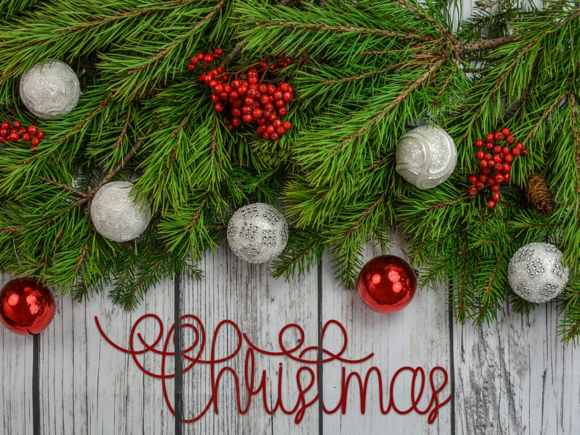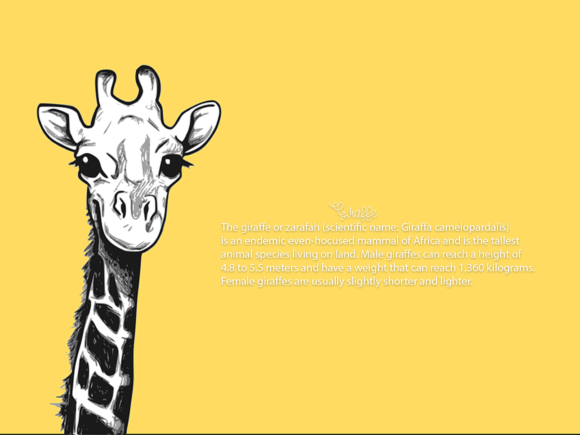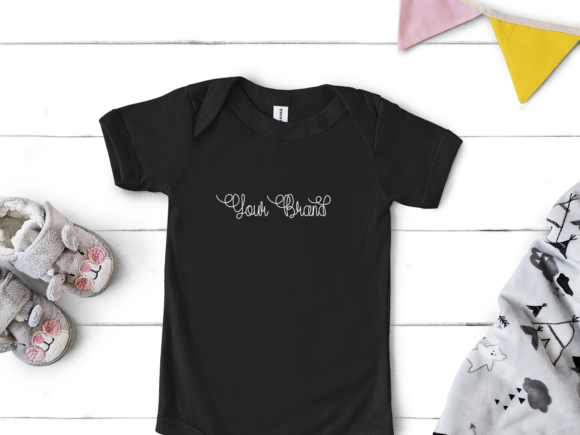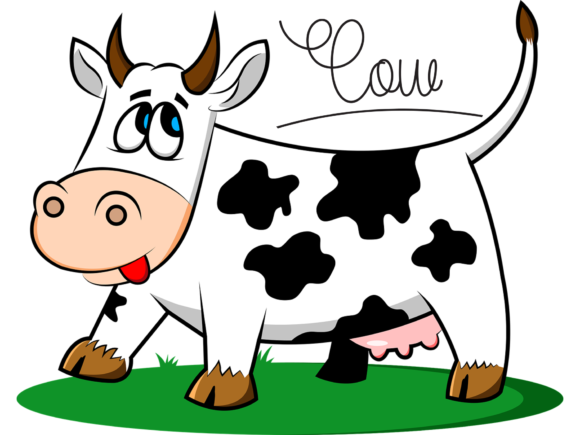
Burger Font: Adding a Personal Touch to Your Designs
In the world of typography, fonts play a crucial role in conveying the tone and personality of a design. If you’re looking for a font that exudes warmth, friendliness, and a touch of whimsy, look no further than Burger Font. This thin lettered, personal, and whimsical script font is perfect for adding a lovely touch to various designs, from letter invitations to Christmas cards, wedding invitations, and more.
What is Burger Font?
Burger Font is a unique script font that features thin, elegant letters with a personal and whimsical feel. Its delicate strokes and curly flourishes make it an excellent choice for designs that require a touch of sophistication and playfulness. Whether you’re a designer, crafter, or DIY enthusiast, Burger Font is an excellent addition to your typography collection.
Characteristics of Burger Font
So, what makes Burger Font so special? Here are some of its key characteristics:
• Thin lettered: Burger Font features thin, delicate letters that are perfect for creating elegant and sophisticated designs.
• Personal: The font has a personal touch, making it ideal for designs that require a human and approachable feel.
• Whimsical: Burger Font’s curly flourishes and playful strokes add a touch of whimsy to any design.
• Script font: As a script font, Burger Font is perfect for creating flowing, connected text that mimics handwriting.
Uses of Burger Font
Burger Font is an incredibly versatile font that can be used for a wide range of designs, including:
• Letter Invitations: Add a personal touch to your letter invitations, whether it’s for a birthday party, baby shower, or other special occasion.
• Christmas Cards: Create beautiful and festive Christmas cards with Burger Font’s elegant and whimsical letters.
• Wedding Invitations: Make your wedding invitations truly special with Burger Font’s delicate and romantic letters.
• DIY Projects: Use Burger Font to add a personal touch to your DIY projects, such as scrapbooking, journaling, and more.
Tips for Using Burger Font
To get the most out of Burger Font, here are some tips to keep in mind:
• Pair with other fonts: Experiment with pairing Burger Font with other fonts to create a unique and visually appealing design.
• Use for headings and titles: Burger Font is perfect for headings and titles, where its elegant and whimsical letters can shine.
• Add embellishments: Consider adding embellishments, such as flowers or leaves, to enhance Burger Font’s whimsical feel.
• Experiment with colors: Don’t be afraid to experiment with different colors to find the perfect match for your design.
In conclusion, Burger Font is a beautiful and versatile script font that can add a personal touch to various designs. Its thin lettered, personal, and whimsical characteristics make it perfect for designs that require a touch of elegance and playfulness. Whether you’re a designer, crafter, or DIY enthusiast, Burger Font is an excellent addition to your typography collection. So, go ahead and get creative with Burger Font – your designs will thank you!